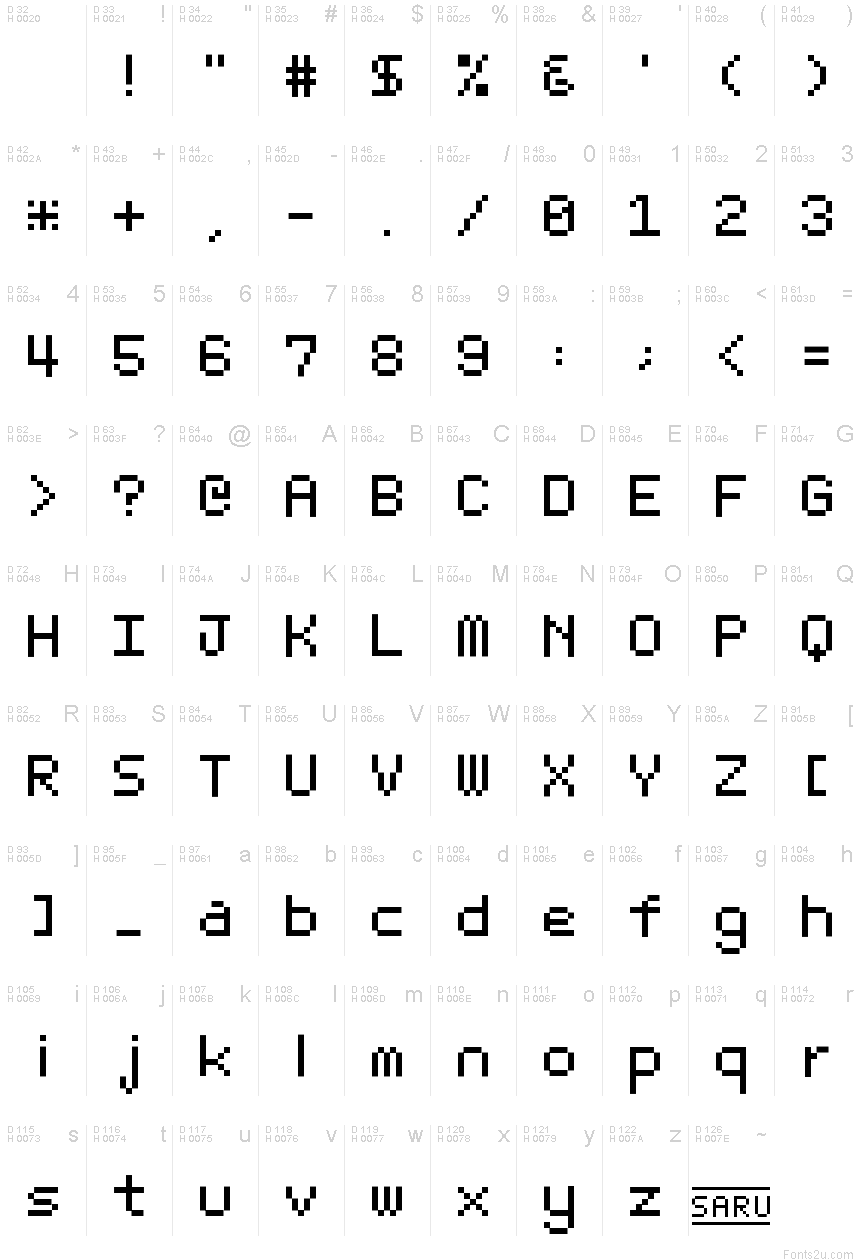
Bit Light10 (sRB)
Bit Light10 (sRB) font by sRB-Powers is a free pixelated bitmap typeface. Its skinny, single–pixel strokes and tight grid give you crisp, low-res text that stays legible where most fonts turn to mush. Letters feel airy and light, with just enough angular personality to read clearly even at tiny sizes, making it a smart choice whenever you’re wrestling with strict pixel or memory limits.
Using Bit Light10 (sRB), small interfaces suddenly become readable: game HUDs, retro menus, demoscene intros, pixel art captions, badges, tooltips, and compact UI labels all benefit from its narrow footprint. This free font keeps lines clean and consistent, so multi-line blocks don’t feel cramped or noisy. Try pairing it with a chunkier pixel font for headings, and keep Bit Light10 around 8–10px to preserve that razor-sharp, nostalgic glow.